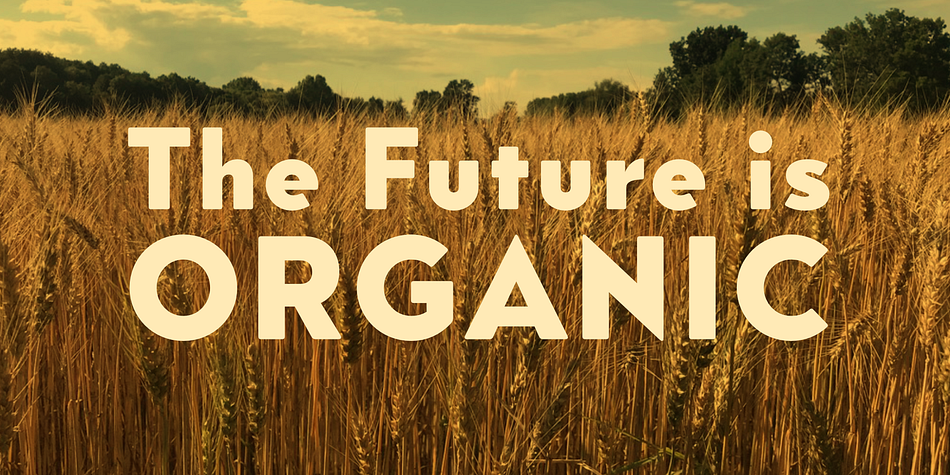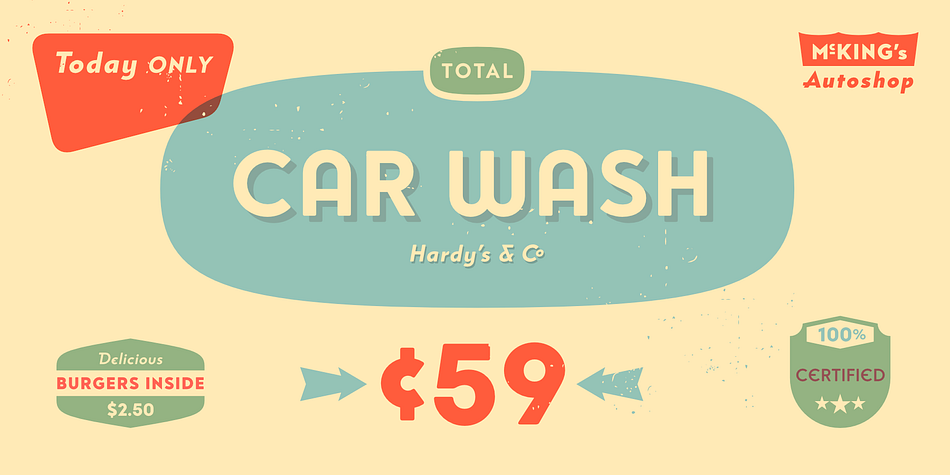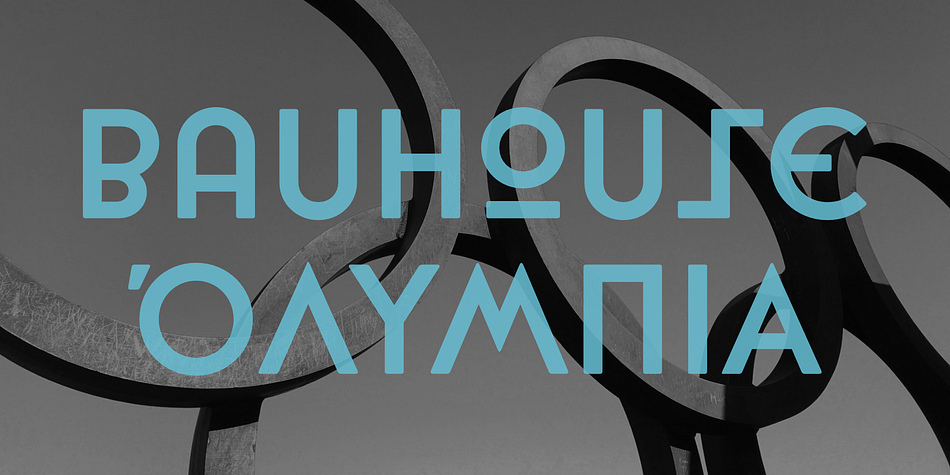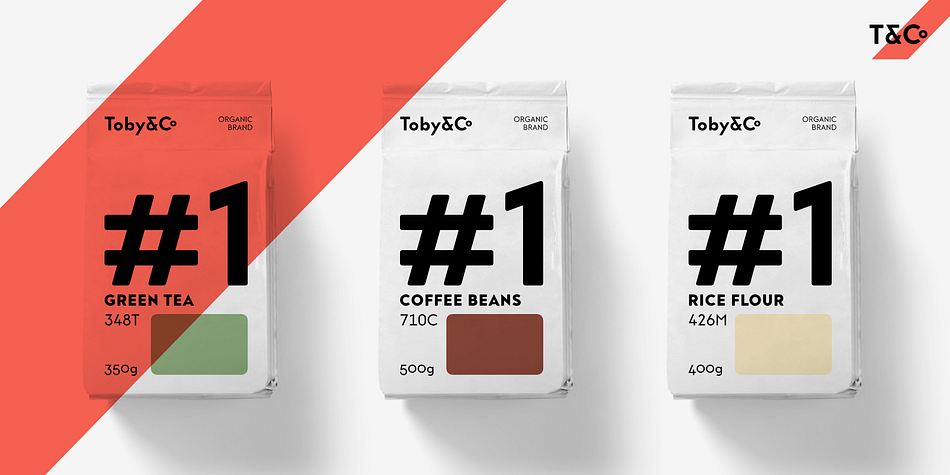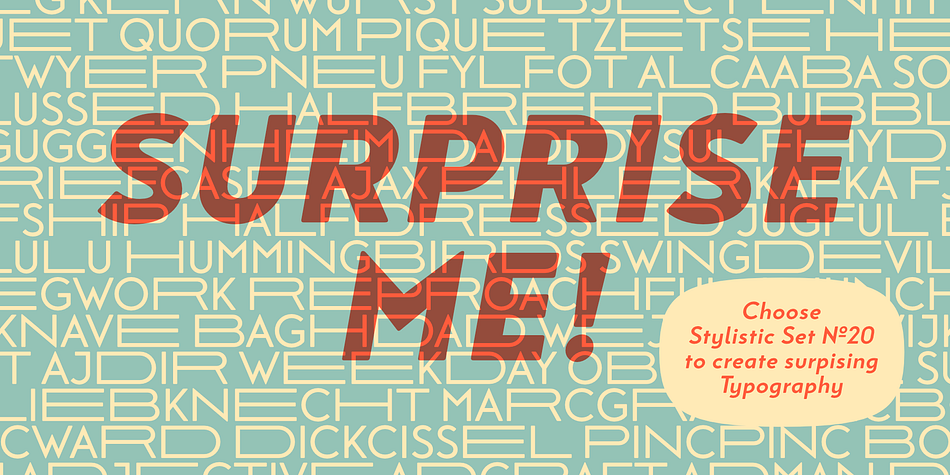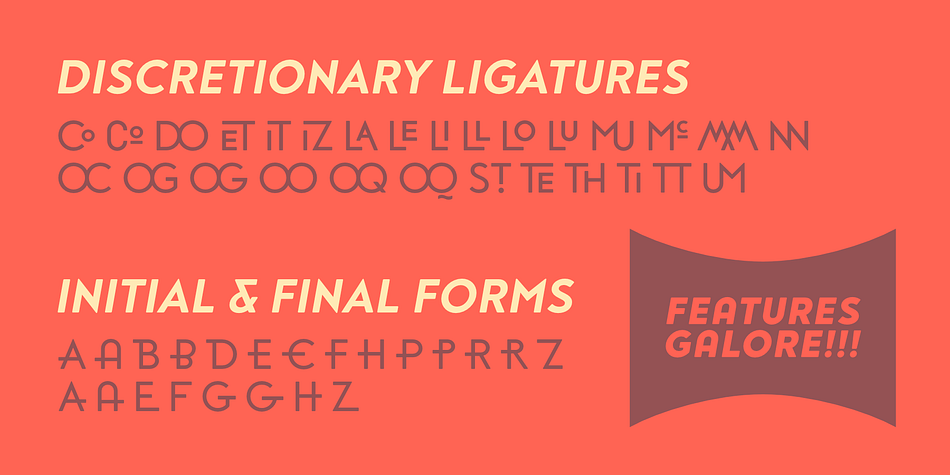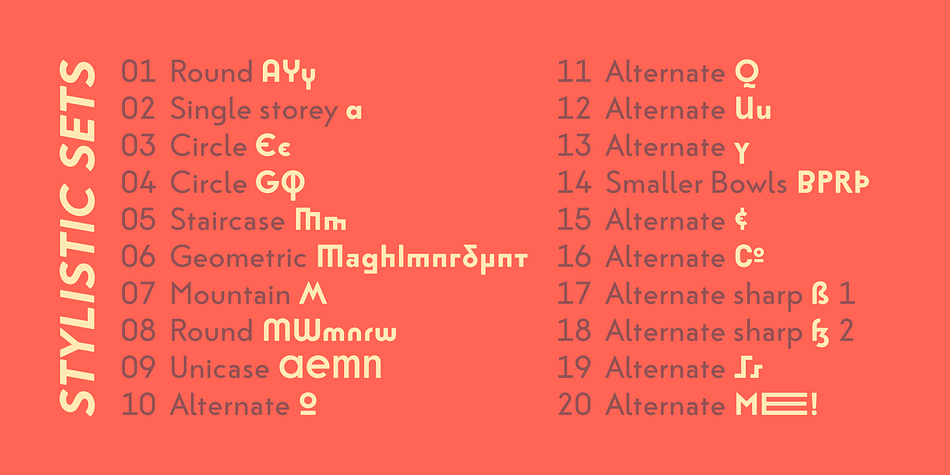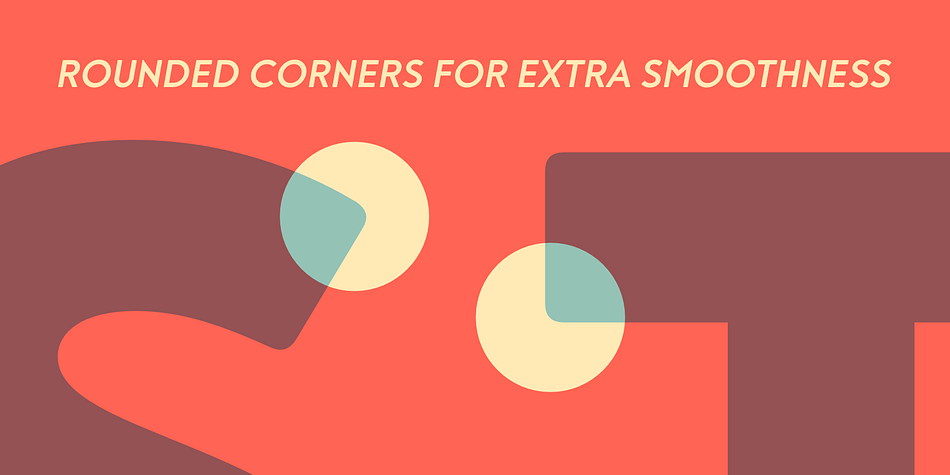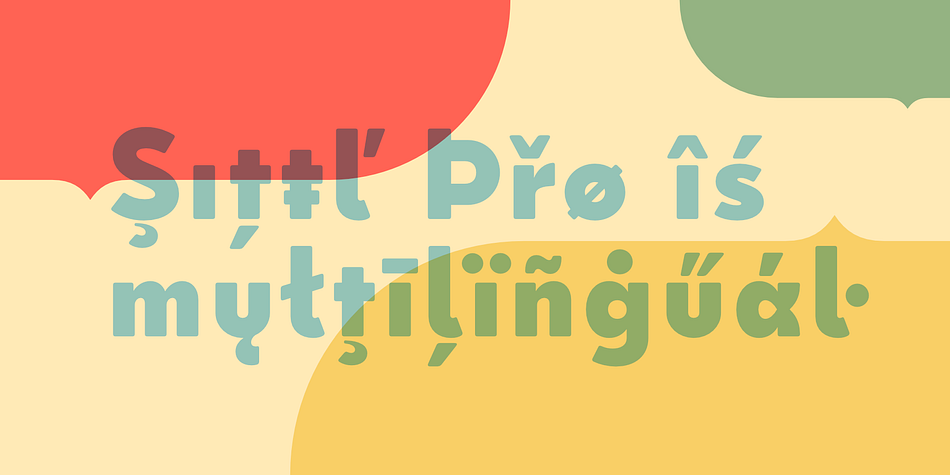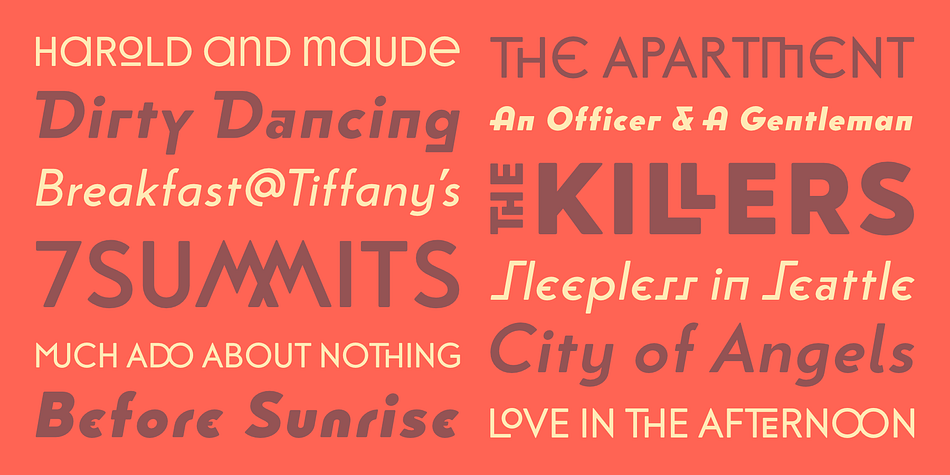
Sittl Pro
Designed by Marcus Sterz, Sittl Pro is a sans serif font family. This typeface has eight styles and was published by FaceType.
Sittl Pro is a professional version of the style of the same name in our Plaquette package, including 4 weights and true italics (most letters are not simply slanted but carefully crafted for that purpose). The smooth retro look achieved by softly rounded edges and a geometriec appeal is ideal for logos, company identities, menu cards, magazine headlines and the like.
There are many choices regarding alternatives – choose the 20 stylistic sets, ligatures as well as initial and final forms to create unique typography for your next stylish project.